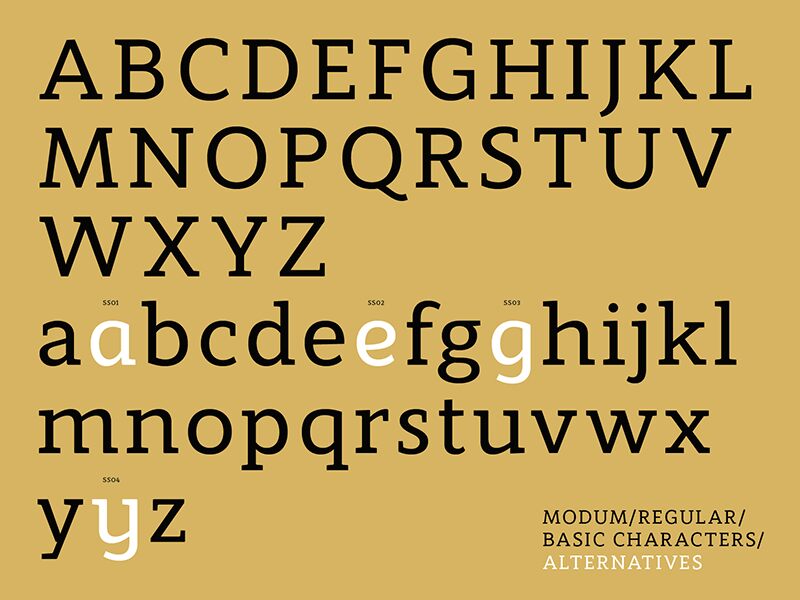
Modum font by The Northern Block is a contemporary serif masterpiece, effortlessly blending traditional charm with modern precision. With its low-contrast structure, Modum stands out through its smooth radius details and sharp angles, offering a visually crisp and distinctive aesthetic.
This free font is perfect for digital applications demanding clarity and elegance. Thanks to its harmonious design, Modum shines in complex editorial layouts, newspapers, and text-based books where readability meets style.
Modum, a contemporary serif font family, seamlessly merges traditional influences with modern design precision. Its low-contrast structure and a delicate balance of smooth radius details and carefully drawn angles create a crisp, distinctive aesthetic that caters to the demands of digital applications. Crafted for optimal functionality, Modum radiates charm, harmony, and practicality, making it an ideal choice for intricate hierarchical projects like editorials, newspapers, and text-based books. Recognized with a Merit Award (Latin Group) at the Hiii International Typography Design competition in 2015, Modum stands as a stylish and versatile serif font, offering readability and visual appeal tailored for the demands of contemporary design and computer-based work.